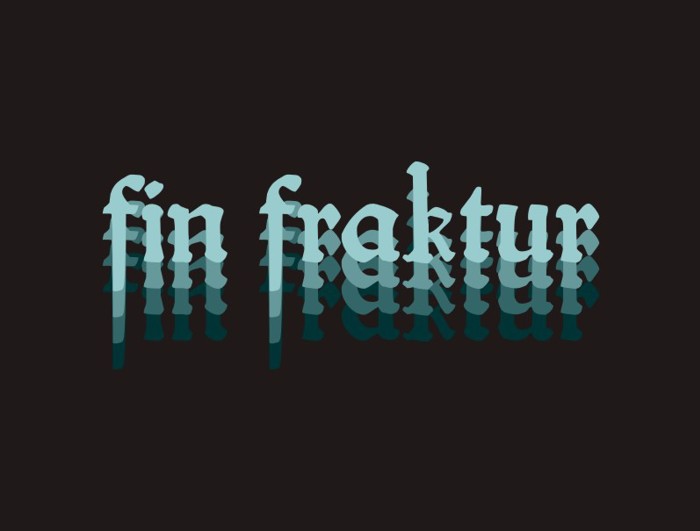
fin fraktur Font
gotic typeface, inspired in designs before the fraktur styles. how I like the beautiful of the minuskels this set contain only minuskel caps.